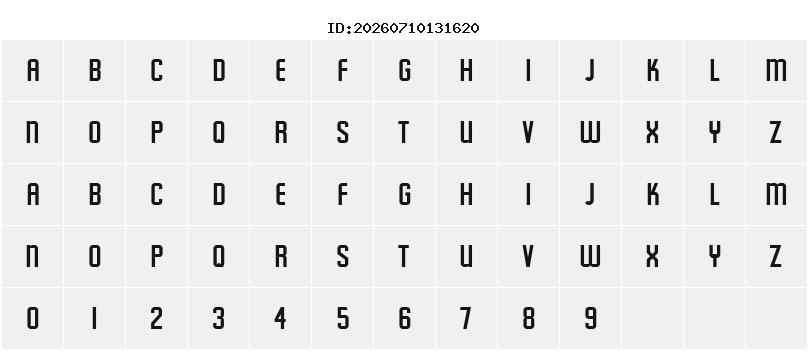
• Font Name: Featured Item
• Full Font Name: Featured Item
• Manufacturer: Font Diner,
Featured Item.ttf is a modern, elegant sans-serif font designed for ultimate readability and visual harmony. Perfect for branding, headlines, web design, and print materials.